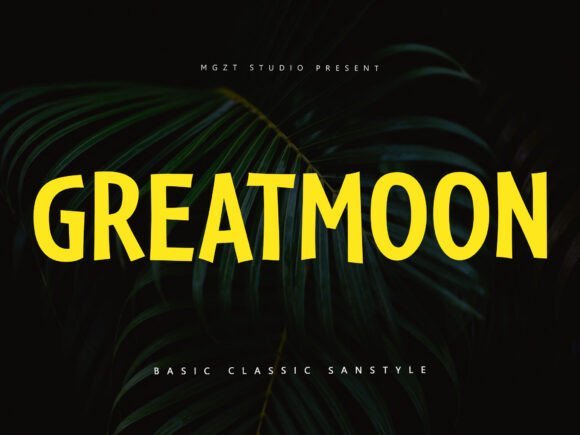
The Perfect Blend of Strength and Warmth: Greatmoon Font
Imagine you’re on a solo hike, surrounded by the majestic beauty of nature. The sun is setting, casting a warm orange glow over the landscape. You’re feeling invigorated and connected to the world around you. This is the kind of emotional resonance that the Greatmoon Font can evoke in your designs.
Greatmoon Font is a sans serif font that strikes a perfect balance between masculinity and warmth. It’s designed to make a powerful statement, whether it’s in rugged branding, outdoor adventure materials, or strong yet inviting headlines. With its substantial size and nuanced design elements, Greatmoon Font is the perfect tool for designers who want to create a lasting impression.
Whether you’re working on a project that requires a bold, adventurous vibe or a more subtle, human touch, the Greatmoon Font is a valuable addition to any designer’s toolkit.
Greatmoon Font Key Features
- Font Family: Greatmoon Font is a unique, hand-drawn sans-serif font family with a mix of modern and traditional elements.
- Character Count: The font family includes over 200 characters, including uppercase and lowercase letters, numbers, punctuation, and special characters.
- Unique Characteristics: The Greatmoon Font features distinctive, flowing lines and subtle texture, giving it a warm, human touch that sets it apart from other sans-serif fonts.
Greatmoon Font Review
As a designer, I was excited to dive into the Greatmoon Font and see what it had to offer. After some experimentation, here are my thoughts.
- Unique aesthetic: Greatmoon Font has a distinctive, ethereal quality that’s perfect for projects that need a touch of whimsy.
- Good legibility: The font is clear and easy to read, even at smaller sizes.
- High-quality glyphs: The font includes a wide range of glyphs, including ligatures and ornaments.
- Limited font weights: While the font is available in several weights, it’s not as comprehensive as some other fonts on the market.
- Not ideal for body text: While Greatmoon Font is great for headlines and titles, it’s not the best choice for large blocks of body text.
Overall, I think Greatmoon Font is a great choice for designers looking to add some visual interest to their projects. While it may not be the most versatile font, it’s perfect for projects that need a touch of elegance and sophistication. With some careful selection of font weights and sizes, you can create some truly stunning designs.
Tips for Getting the Most Out of the Greatmoon Font
Use the Greatmoon Font to add a touch of elegance and sophistication to your designs.
Pair the Greatmoon Font with other fonts to create a unique and eye-catching design.
The Greatmoon Font is perfect for:
Business cards and marketing materials
Book covers and editorial designs
Any design project where a touch of elegance and sophistication is needed